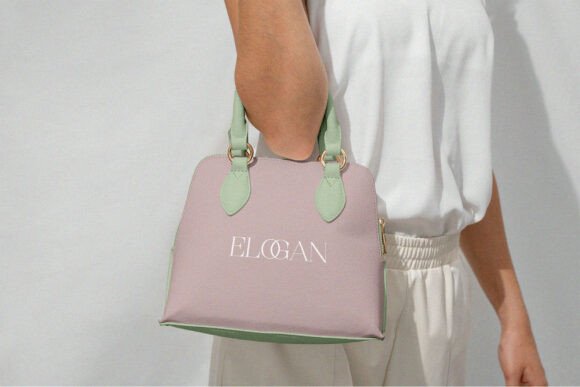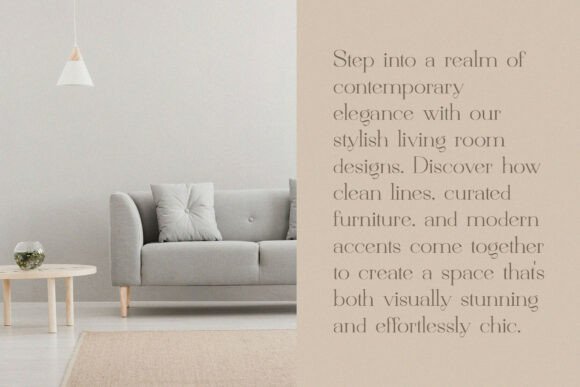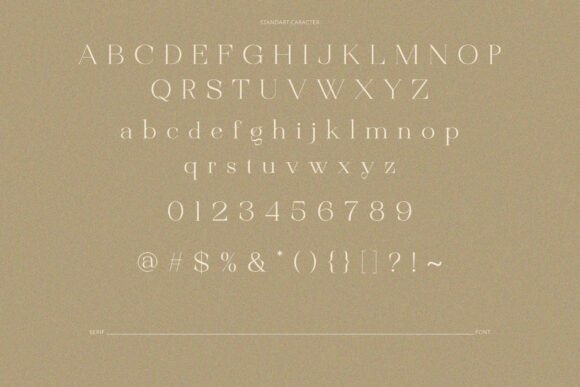
Introduction to Rostedik Font
You’re working on a high-end fashion campaign, and you need a font that screams luxury and sophistication. You’re scrolling through your design resource library, searching for the perfect combination of modernity and elegance. And then, you stumble upon it – Rostedik Font. Its bold presence and sleek sophistication immediately catch your eye, and you know you’ve found the perfect match for your creative project.
Rostedik Font is more than just a stylish addition to your design; it’s a game-changer. With its high contrast strokes, sharp serifs, and stylish curves, it’s the perfect tool for designers looking to elevate their work. Whether you’re working on editorial designs, luxury branding, or fashion campaigns, Rostedik Font is the perfect choice for creating bold headlines that demand distinction and style.
Key Features of Rostedik Font
- High-quality design resource ideal for creative projects requiring a unique touch
- Includes a wide range of characters, including uppercase and lowercase letters, numbers, and special symbols
- Unique, modern design style that adds a creative twist to any project
Honest Review: Rostedik Font
I recently stumbled upon the Rostedik Font, a free download that caught my attention as a potential design resource for a creative project. Upon closer inspection, I was pleasantly surprised by its high quality and versatility.
What works well: ✨ The font’s modern design and sleek aesthetic make it perfect for a wide range of applications, from logos to typography-based designs. I also appreciate the transparent background, which allows for easy layering and manipulation in design software.
- Customizable: The Rostedik Font offers a range of customization options, including font sizes, colors, and styles.
- Professional look: The font’s clean design gives off a professional, high-end look that’s perfect for creative projects.
However, I do have a few concerns: ⚠️ The font’s limited character set may not be suitable for projects that require extensive typing or text-based elements.
Overall, I’m impressed with the Rostedik Font’s quality and potential. While it may have some limitations, I believe it’s a valuable addition to any design resource library, especially for creative projects that require a modern, high-end look.
The Rostedik Font is a versatile, high-quality design resource perfect for creative projects. This free download is ideal for designers and artists seeking a unique font for their work.
The Rostedik Font is suitable for various design projects, including:
- Infographics and data visualizations